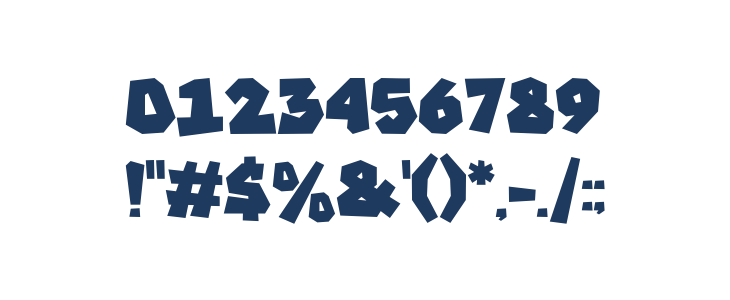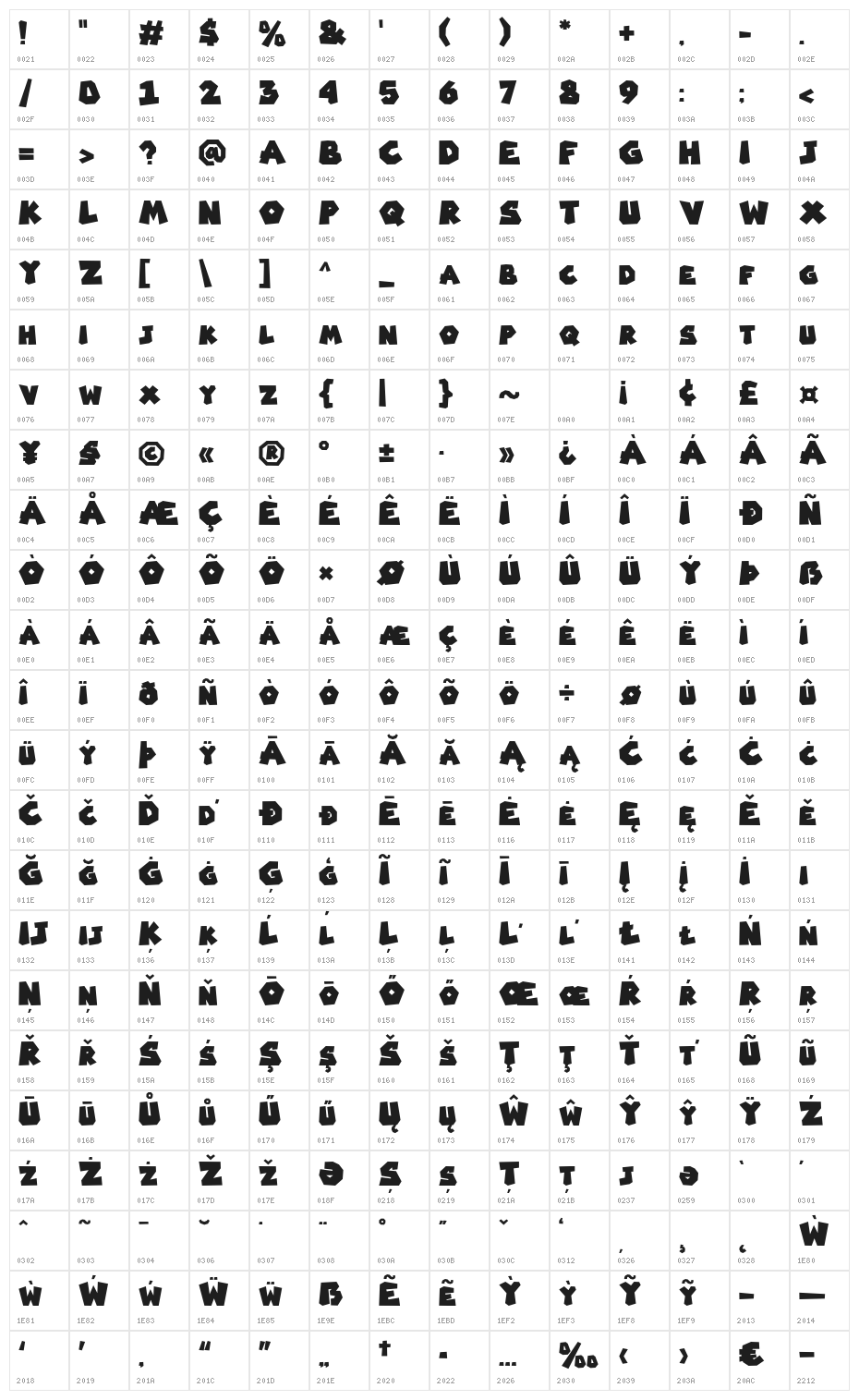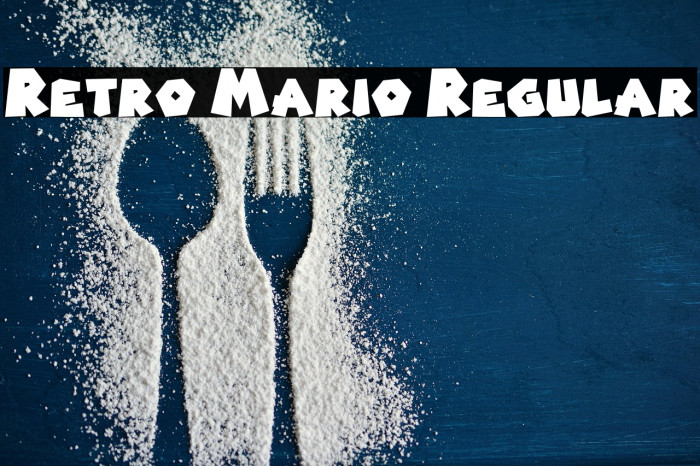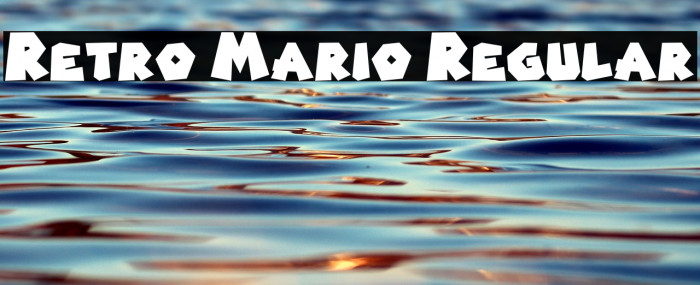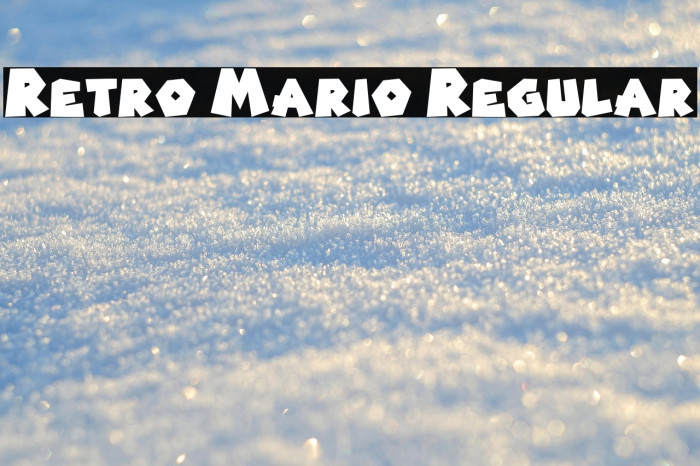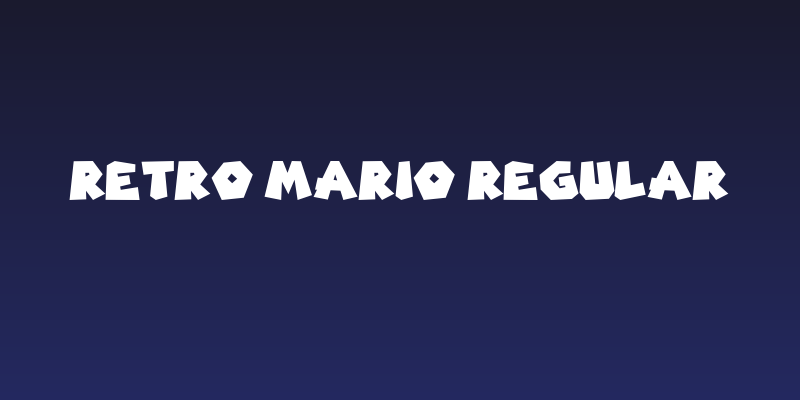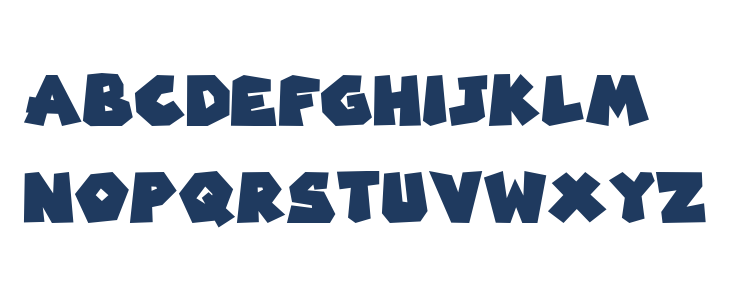
Retro Mario Regular Font
Retro Mario Regular Description
This font features a bold, playful design reminiscent of retro video game aesthetics. The characters are blocky and angular, with a distinct geometric style that adds a sense of fun and nostalgia. Each letter and number is crafted with sharp edges and a slightly irregular shape, giving it a dynamic and energetic appearance. The font maintains a consistent weight throughout, ensuring readability while still capturing attention. Its unique style makes it ideal for projects that aim to evoke a sense of vintage gaming or playful creativity.
| Overall Style | Retro, Playful |
| Proposed Projects | Perfect for video game designs, retro-themed posters, playful branding, and children's book covers. |